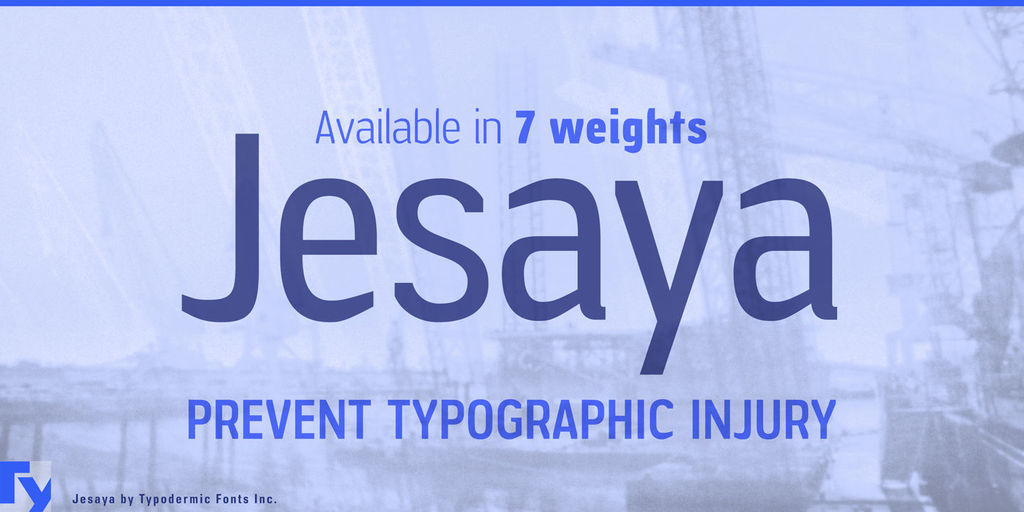
Jesaya Font is perfect for religious publications, spiritual retreat materials, biblical study guides, church communications, faith-based organizations, inspirational book covers, spiritual counseling centers, religious education resources, prayer group materials, and spiritually uplifting marketing communications.
Jesaya Font is exciting because it embodies the prophetic wisdom and spiritual authority found in sacred texts with its reverently crafted letterforms that seem inscribed with divine inspiration and carry the timeless messages of hope, justice, and redemption that have guided faithful communities through centuries of challenge and transformation. Its spiritually distinguished character design reflects both the scholarly devotion required for biblical study and the prophetic courage that speaks truth to power with unwavering conviction, making it perfect for brands dedicated to spiritual guidance and faith-based mission.
Jesaya Font family includes light, regular, medium, bold, and black weights, each with corresponding italic versions. The font family also features religious ornaments, spiritual ligatures, biblical symbols, and sacred decorative elements that enhance its reverent aesthetic and faith-based versatility.
This spiritually distinguished typeface represents the perfect fusion of prophetic authority and contemporary accessibility. Jesaya Font Free Download allows designers to experience its sacred potential before making a commercial commitment. The font's ability to convey both spiritual gravitas and pastoral warmth makes it ideal for religious institutions, faith-based publishers, and spiritual organizations targeting congregations and believers seeking authentic religious expression and biblical wisdom.
Whether you're developing church identities, creating biblical study materials, or designing faith-based communications, Jesaya Font brings an unmistakable sense of spiritual authority and prophetic wisdom to every project. Its reverent character and biblical heritage create powerful connections that resonate with faith communities and audiences seeking authentic spiritual guidance and religious inspiration.
The font's versatility excels in religious and educational environments where spiritual authority and sacred tradition are paramount. Its prophetic character makes it particularly effective for churches, religious publishers, biblical seminaries, and faith-based organizations seeking to establish reverent relationships with believers and audiences who value authentic religious expression and scriptural wisdom.
For designers working on projects requiring genuine spiritual authority and religious appeal, Jesaya Font provides an exceptional solution. Its spiritually distinguished presence and comprehensive biblical elements offer the tools needed for creating truly reverent communications, while its prophetic wisdom ensures your designs capture the sacred authority and spiritual depth that defines the most inspiring religious traditions and faith-based excellence.